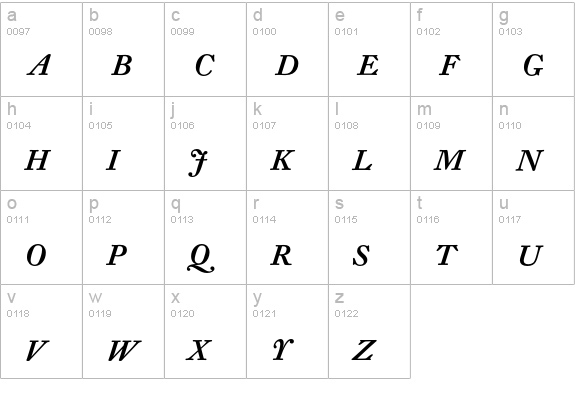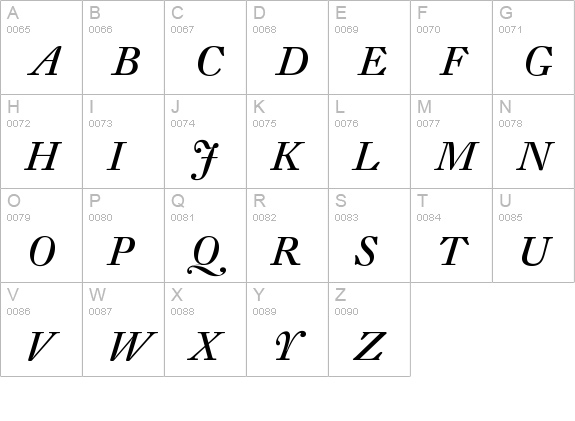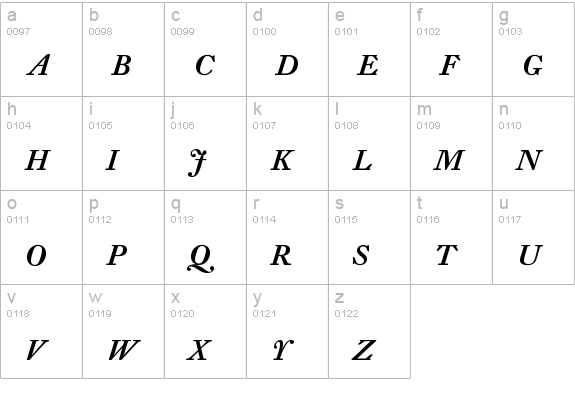
The DTLFleischmannT-CapsItalic font exudes elegance and sophistication with its sleek and stylish design. Featuring delicate italicized letterforms that convey a sense of refinement, this font is perfect for adding a touch of class to your projects. Its timeless appeal makes it suitable for a variety of uses, from invitations to branding and more. What's even better is that the DTLFleischmannT-CapsItalic font is available for free download at FontsMarket.com. This means you can easily access this high-quality typeface without any cost, making it a valuable addition to your font library. Don't miss out on the opportunity to enhance your designs with this beautiful and versatile font. Download it now and elevate your creative projects with the DTLFleischmannT-CapsItalic font.